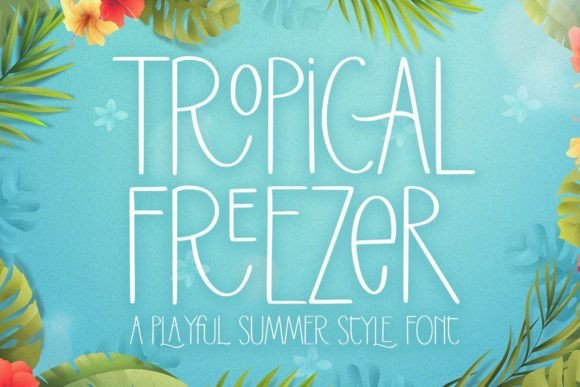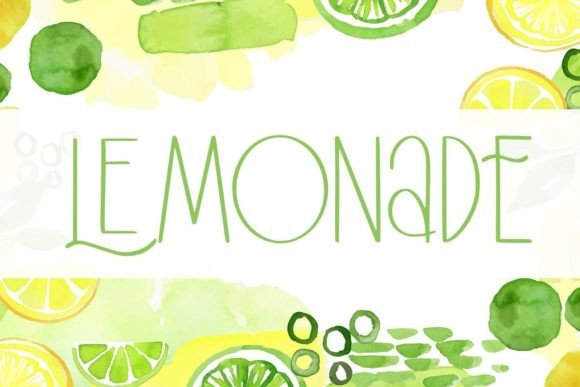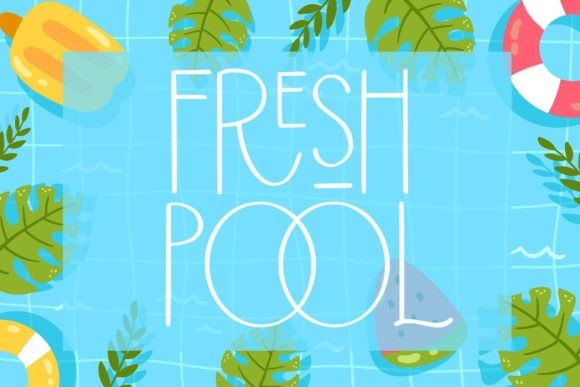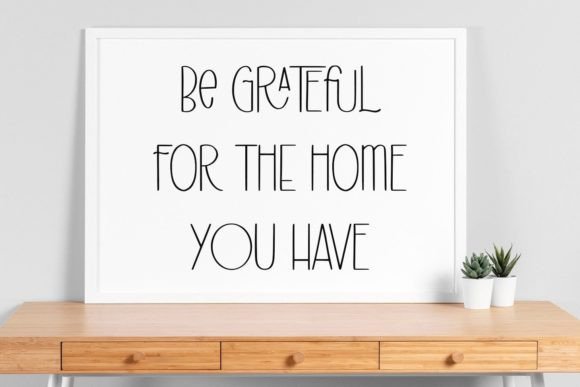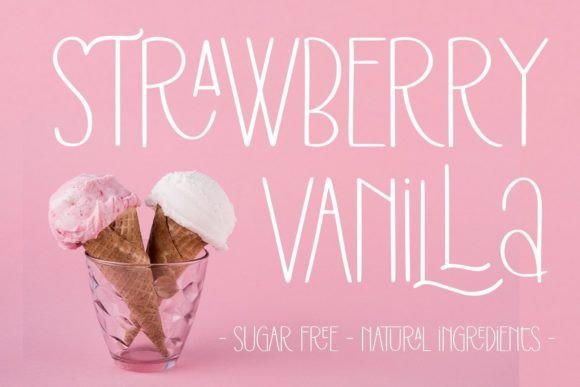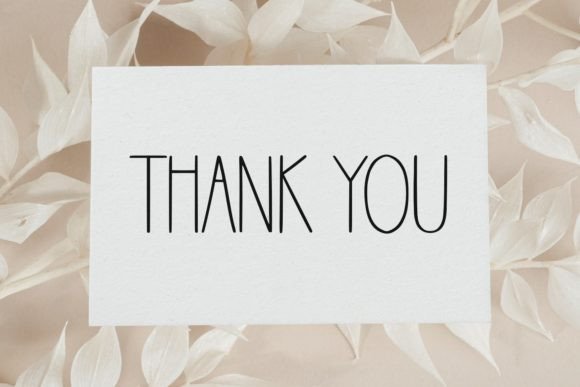
Tropical Freezer Font
About Tropical Freezer Font
“Tropical Freezer” is a playfully handmade font that exudes a carefree and whimsical charm. This display font is crafted to infuse a special, playful touch into a myriad of design ideas, making it a versatile and delightful addition to your creative toolkit. With its masterful design, “Tropical Freezer” has the potential to become a true favorite, elevating each of your creative ideas to the highest level.
The handwritten and playful nature of “Tropical Freezer” makes it particularly well-suited for a wide range of design applications. Whether you’re working on branding, packaging, posters, social media graphics, or any creative project, this font adds a unique and vibrant character that captures attention.
The display font category allows “Tropical Freezer” to stand out boldly, making it perfect for creating eye-catching headlines, titles, and focal points within your designs. Its playful demeanor brings a sense of joy and spontaneity, creating a memorable visual impact.
Picture “Tropical Freezer” enhancing a tropical-themed project, creating a lively and fun atmosphere. Envision it in children’s book illustrations, where its playful handwriting adds an extra layer of charm. The versatility of this font extends to various creative endeavors, making it a go-to choice for those seeking a font that radiates positivity and creativity.
In summary, “Tropical Freezer” goes beyond being just a font; it’s a design companion that injects playfulness and energy into your projects. Use it to bring a special touch to your branding, packaging, posters, or any creative endeavor where a playful and handmade aesthetic is desired. Let “Tropical Freezer” be the element that propels your creative ideas to new heights.